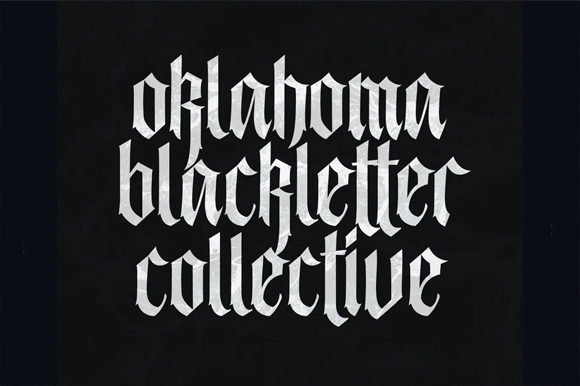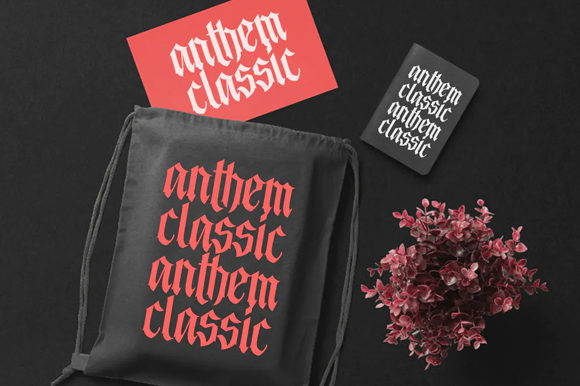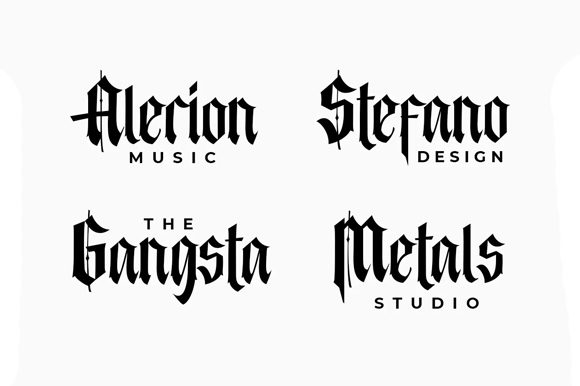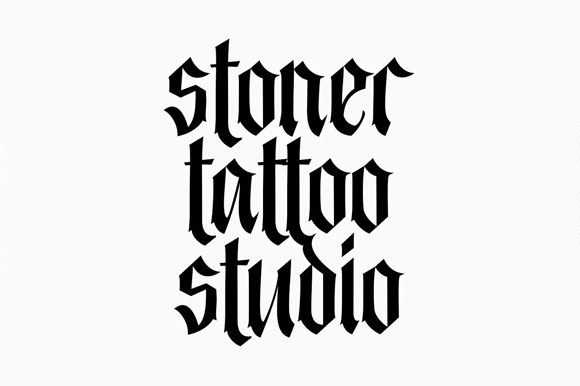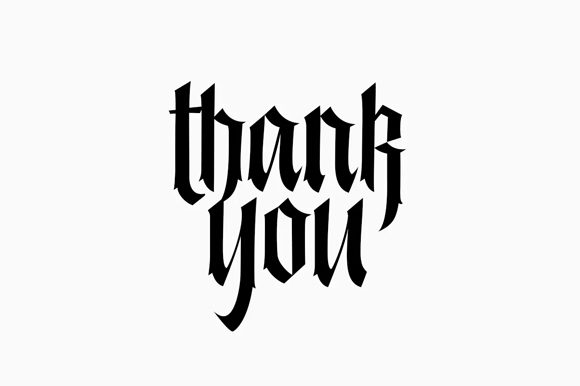
Bring Your Designs to Life with Janchuk Font
Have you ever stared at a blank page, your mind racing with creative ideas, but struggling to put them into words? We’ve all been there. Sometimes, all it takes is the right tool to unlock our full potential. For designers, finding the perfect font can be the difference between a dull, uninspired design and a stunning masterpiece. That’s where Janchuk Font comes in – a bold and authentic blackletter font that’s sure to elevate your creative ideas.
With its unique character and flair, the Janchuk Font is designed to add depth and personality to your designs. Whether you’re working on a project that requires a touch of elegance or a dash of edginess, this font is sure to bring it to life. As a valuable addition to your design toolkit, the Janchuk Font is a must-have for any creative professional looking to take their work to the next level.
- Unique Characteristics: Janchuk Font features a unique blend of traditional and modern design elements, making it suitable for various design projects
Janchuk Font Review
When I first laid eyes on the Janchuk font, I was immediately drawn to its unique and quirky aesthetic. ✨ The font’s bold lines and playful curves make it perfect for adding a touch of whimsy to your designs. I particularly love how it works well for titles and headings, giving your content a fun and energetic feel.
One of the standout features of Janchuk is its versatility. ✨ It’s available in a range of weights, from light to bold, making it suitable for a variety of design projects. I’ve also found that it pairs well with other fonts, adding a nice contrast to more serious typography.
While Janchuk is a great font, there are a few limitations to be aware of. ⚠️ For one, the font can be a bit overwhelming when used in large blocks of text. I’ve found that it’s best to use it sparingly, reserving it for headings and titles rather than body copy.
- Limited readability in large text blocks
- May not be suitable for formal or professional designs
Overall, I’m a big fan of the Janchuk font. Its unique style and versatility make it a great addition to any designer’s toolkit. While it may not be suitable for every project, it’s definitely worth considering for designs that need a bit of personality and flair.
Tips for Getting the Most Out of Janchuk Font
Use Janchuk Font to add a unique touch to your designs, especially for Asian-inspired or cultural-themed projects.
Combine Janchuk Font with bold graphics or patterns to create visually striking designs.
Experiment with different font sizes and styles to achieve the desired visual impact.
Janchuk Font is ideal for:
Asian-inspired designs, such as Chinese or Korean-themed projects.
Cultural or traditional designs, such as wedding invitations or festival promotions.
Unique or eye-catching titles, headings, or logos.